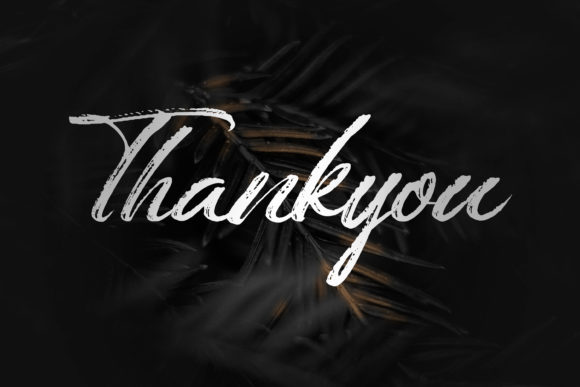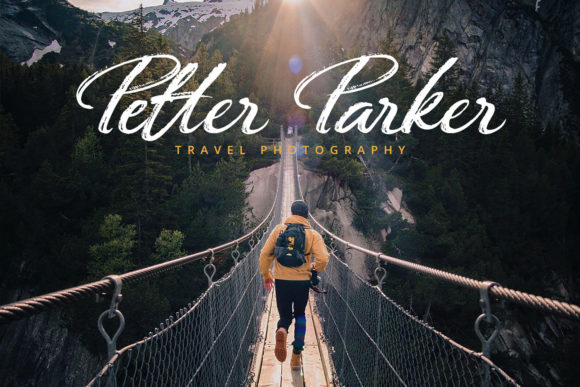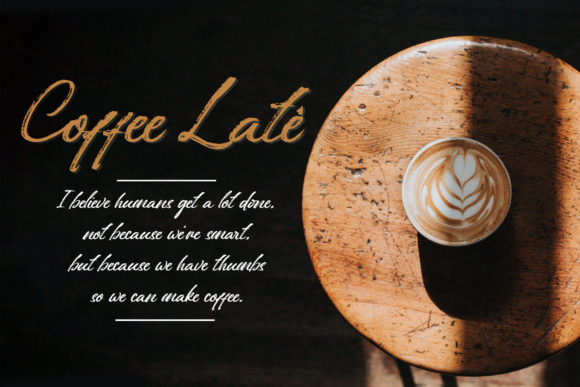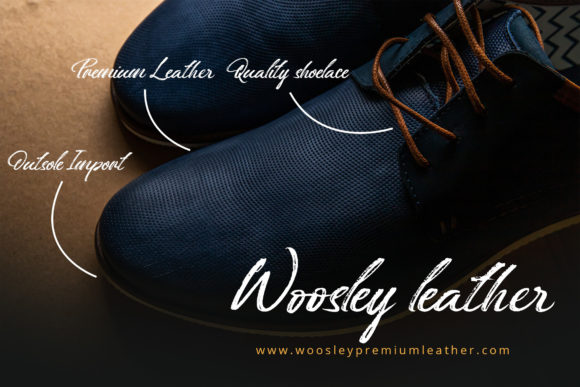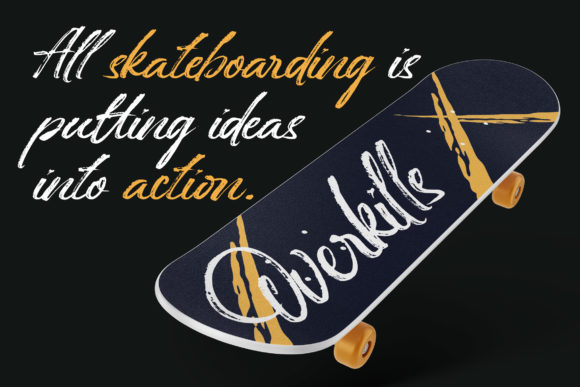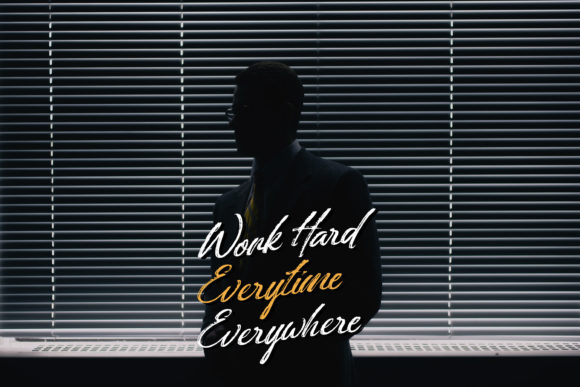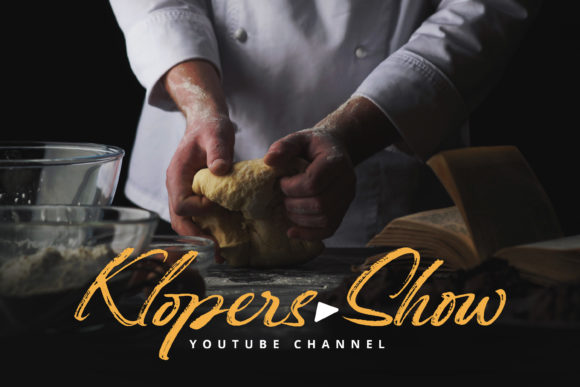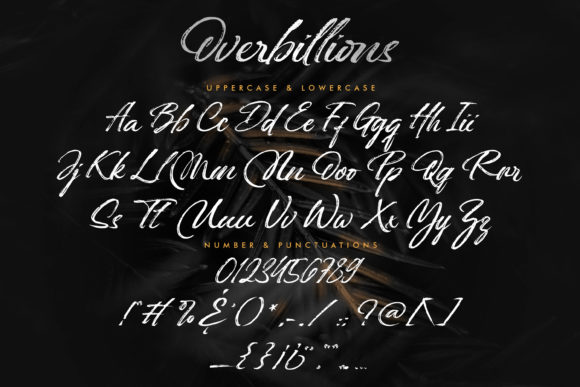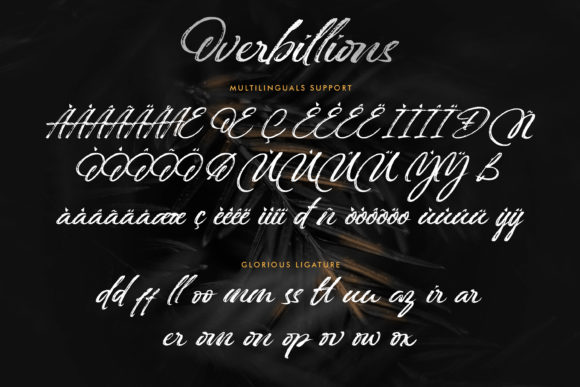
Overbillion Font
About Overbillion Font
Overbillion is a gorgeous and brushed script font. Use it for projects that need lovely, romantic typography! This font is PUA encoded, which means you can access all of the glyphs and swashes with ease!